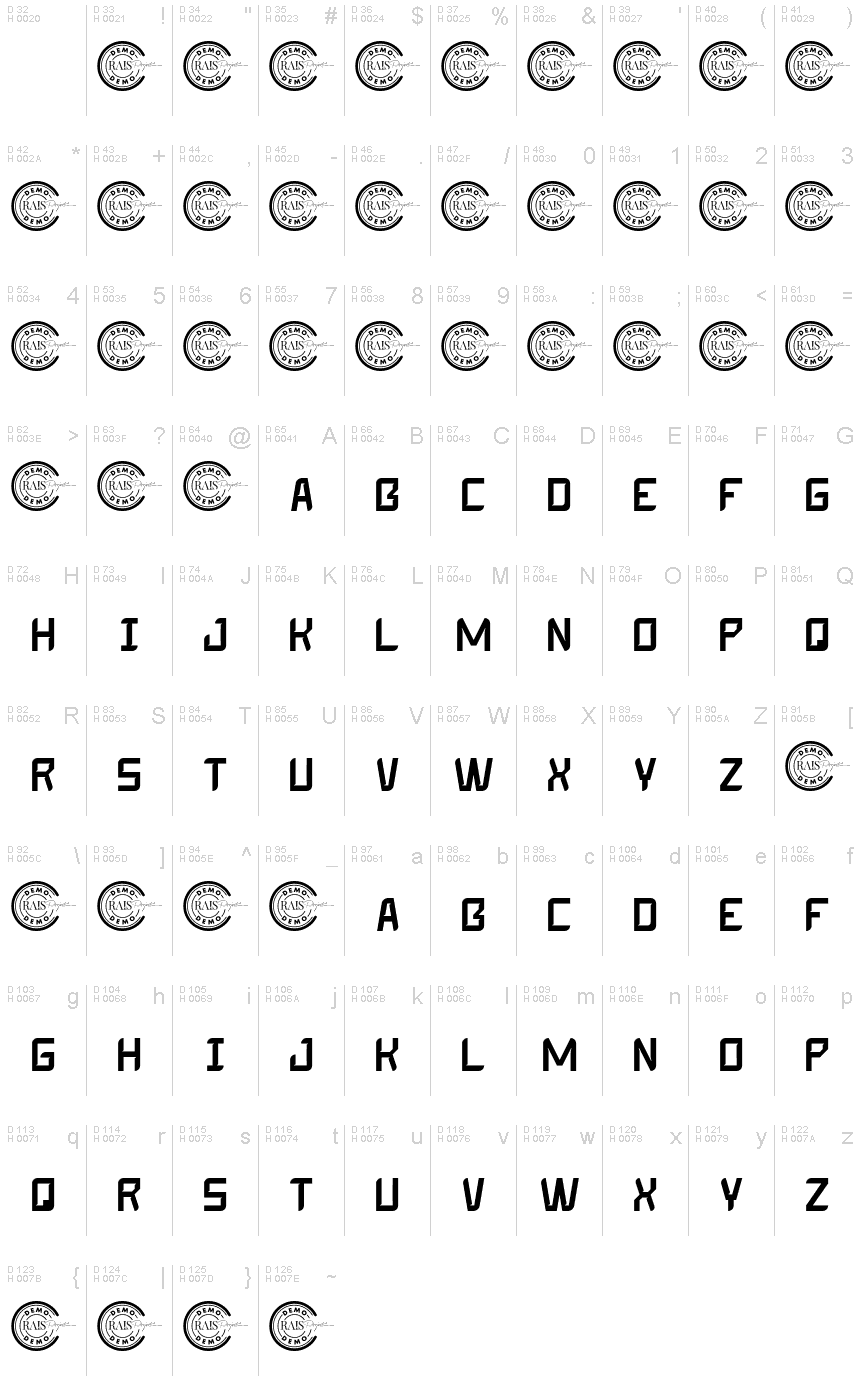
Hotfast Demo
Hotfast is a futuristic, techno-inspired display font by RaisProject. Its bold and dynamic style makes it perfect for eye-catching headlines and attention-grabbing designs. The semi-bold font weight and condensed width give it a sleek, modern look that's ideal for projects related to technology, gaming, or sci-fi. Use Hotfast to create striking logos, posters or packaging designs that demand attention. Its unique style will make your design stand out from the crowd and leave a lasting impression on your audience. Try Hotfast today and take your design projects to the next level!